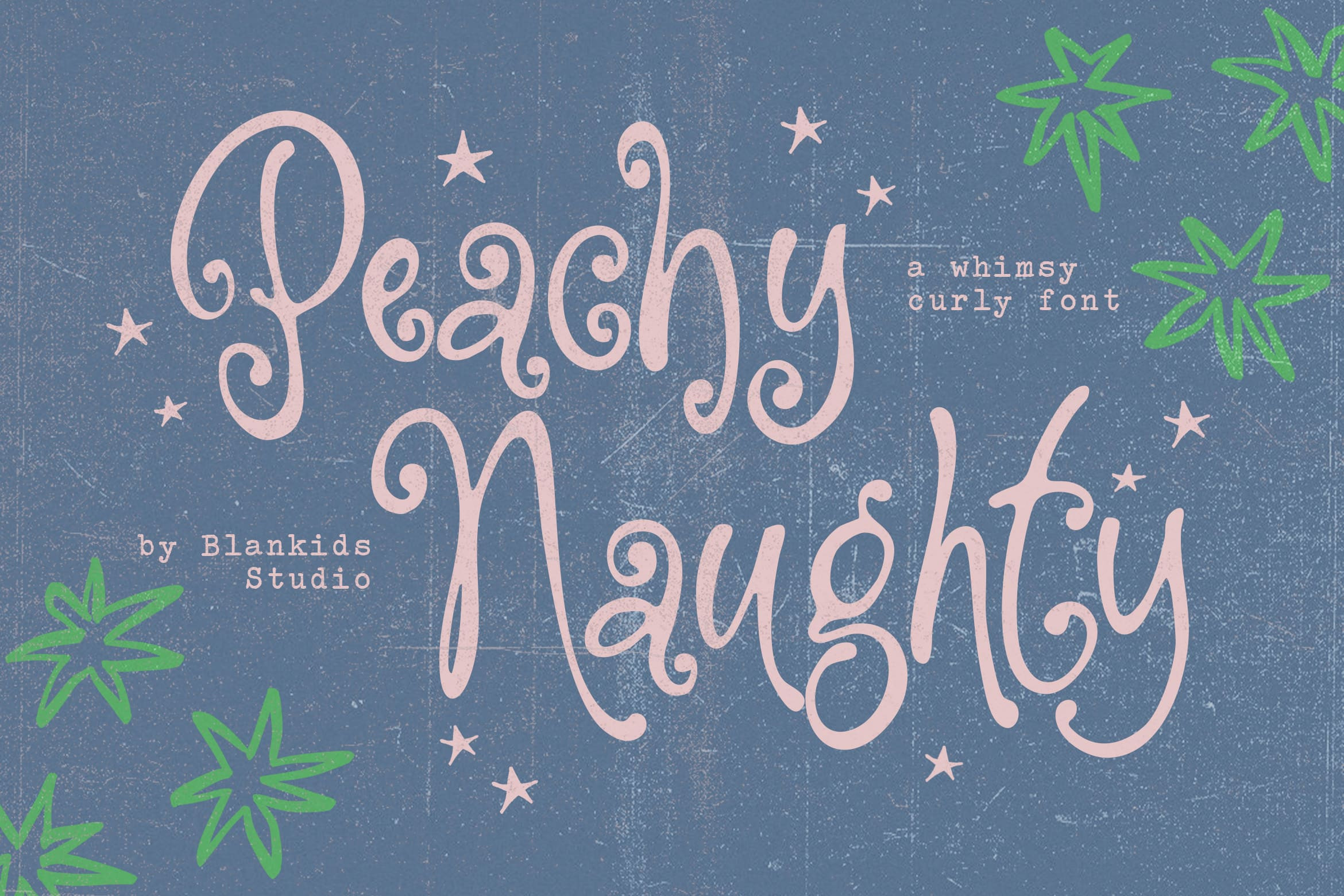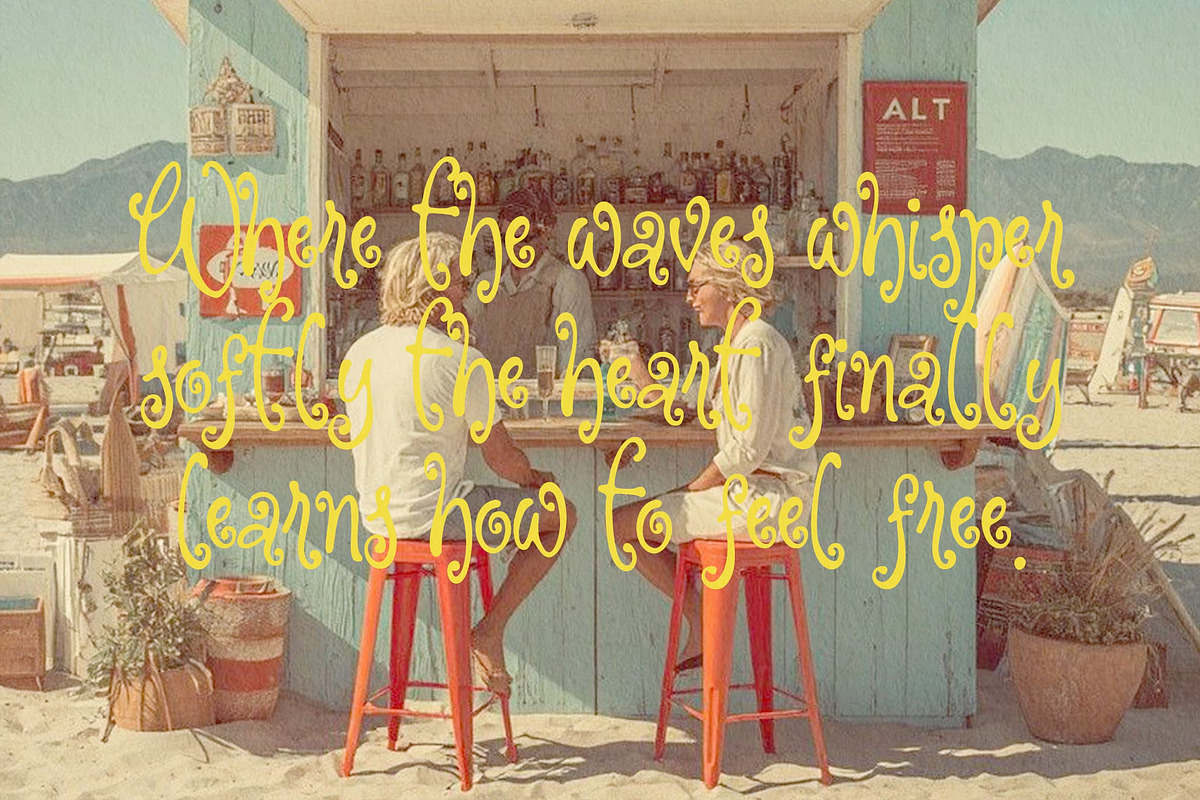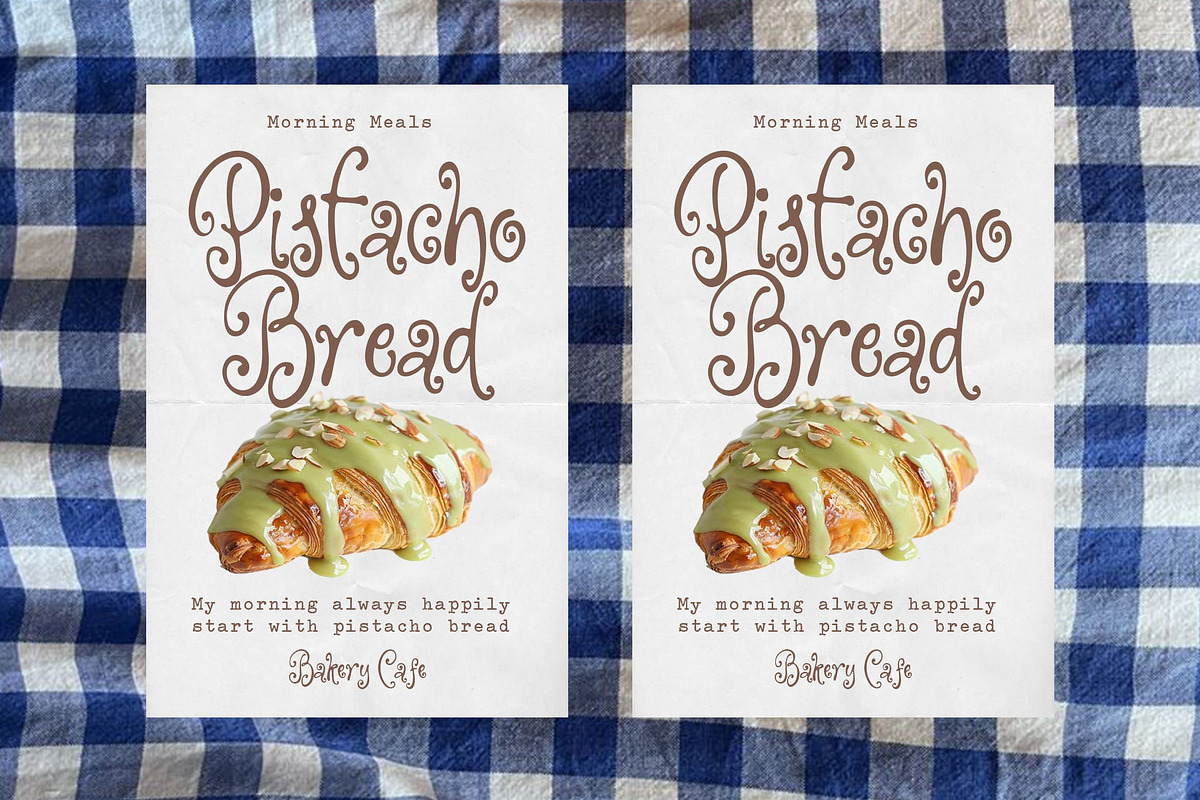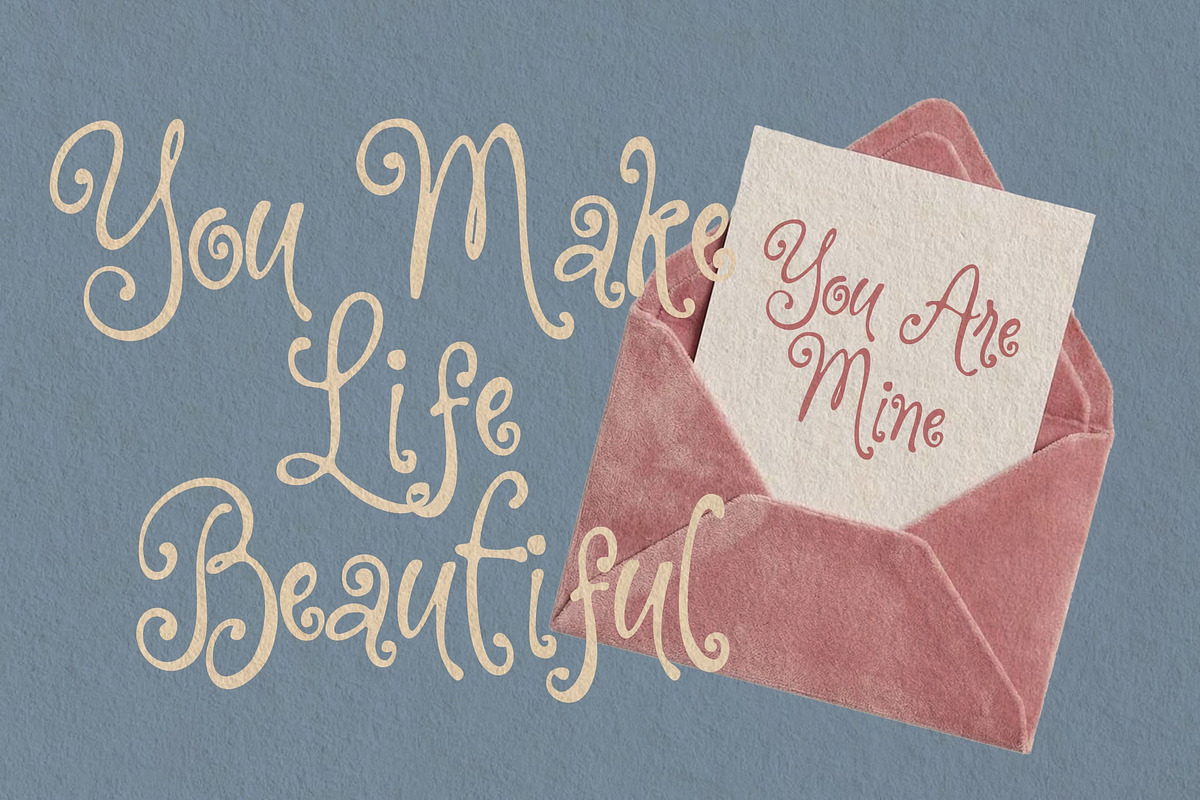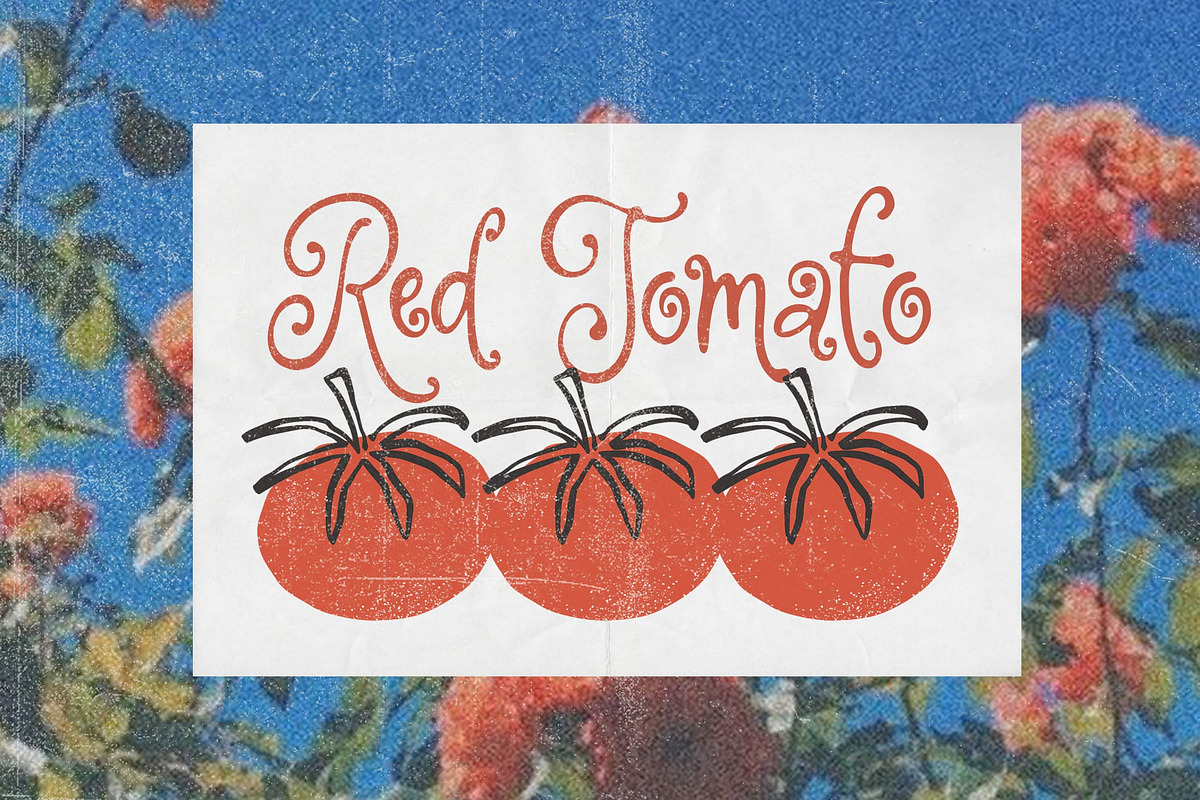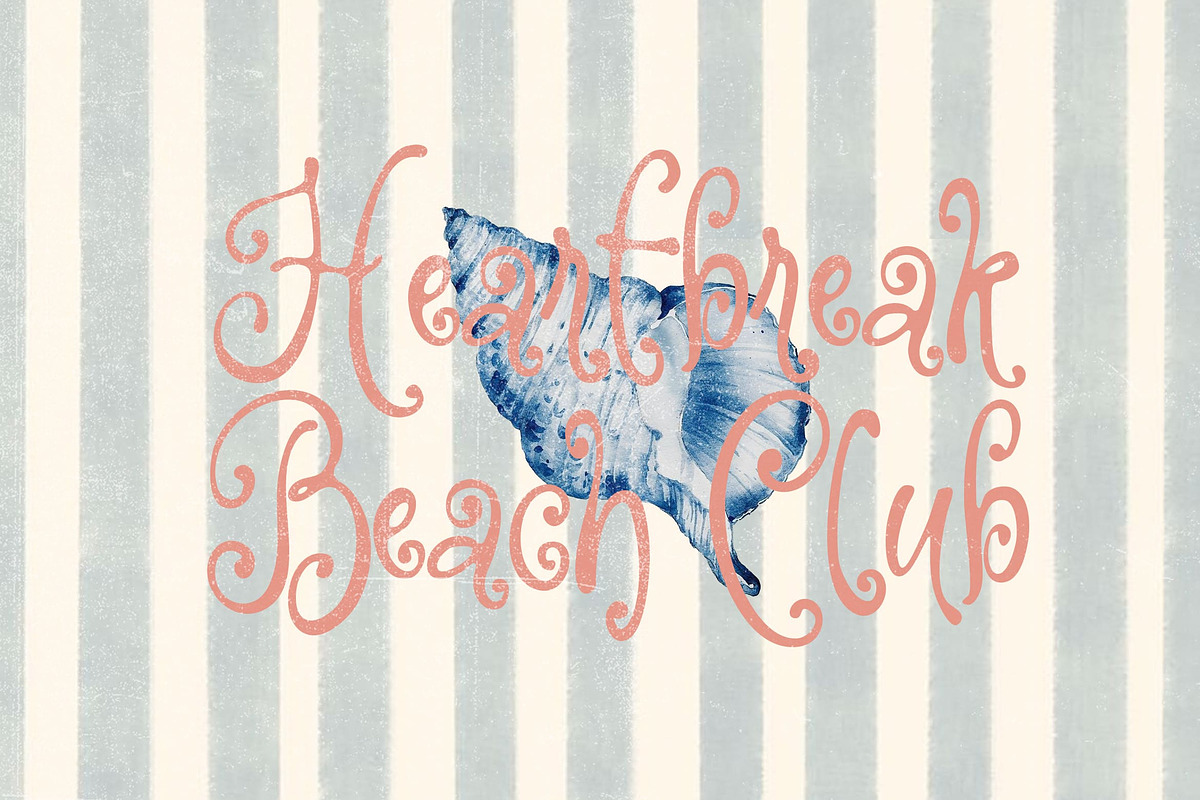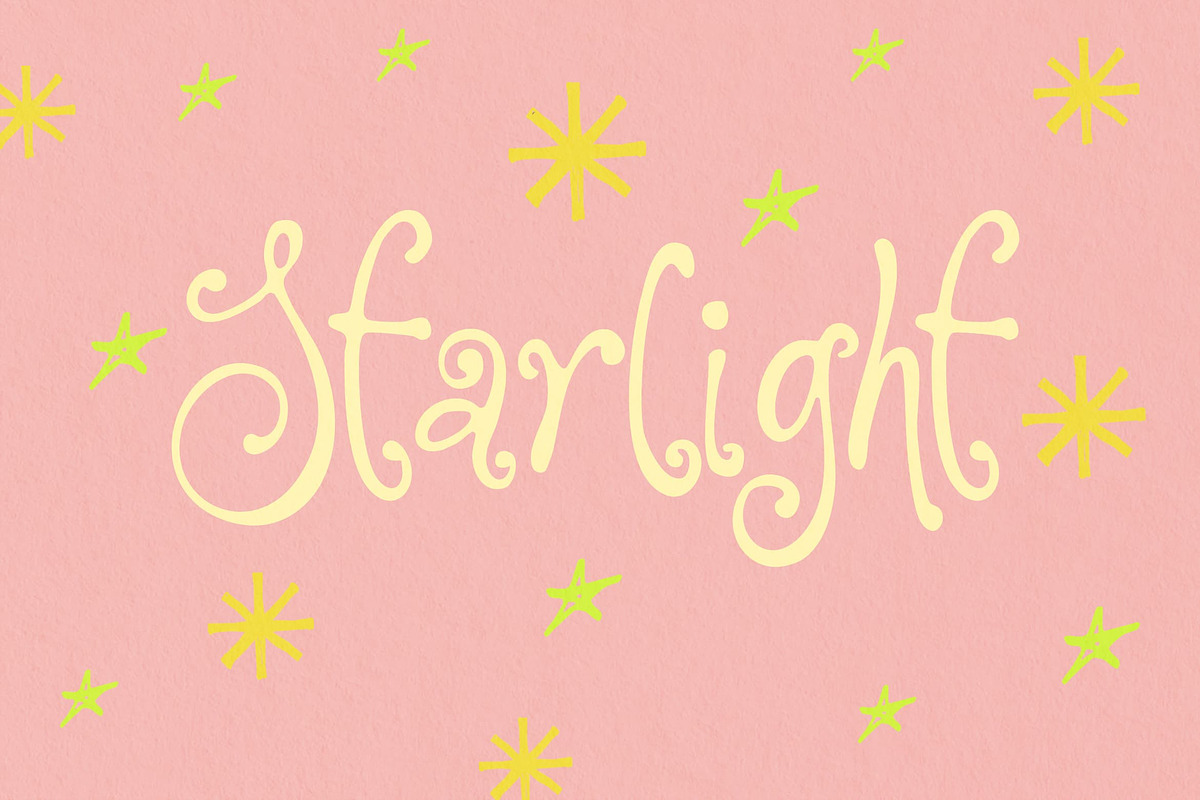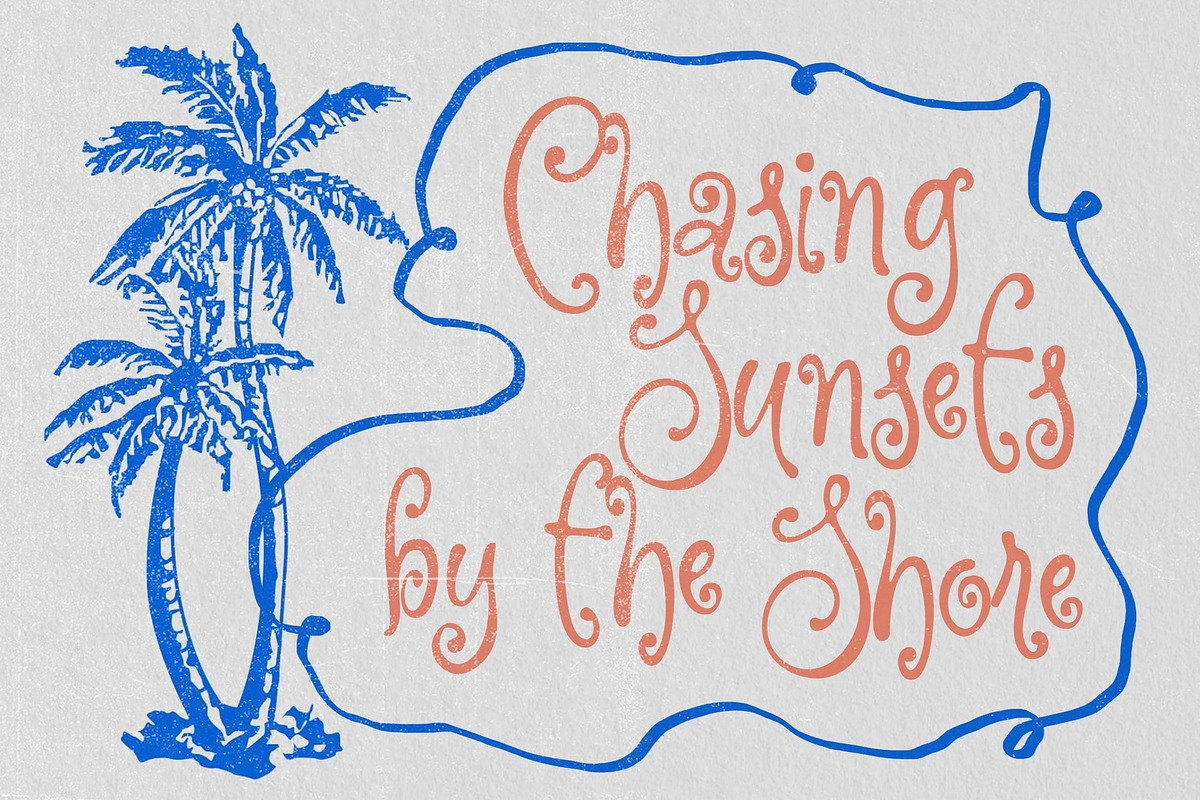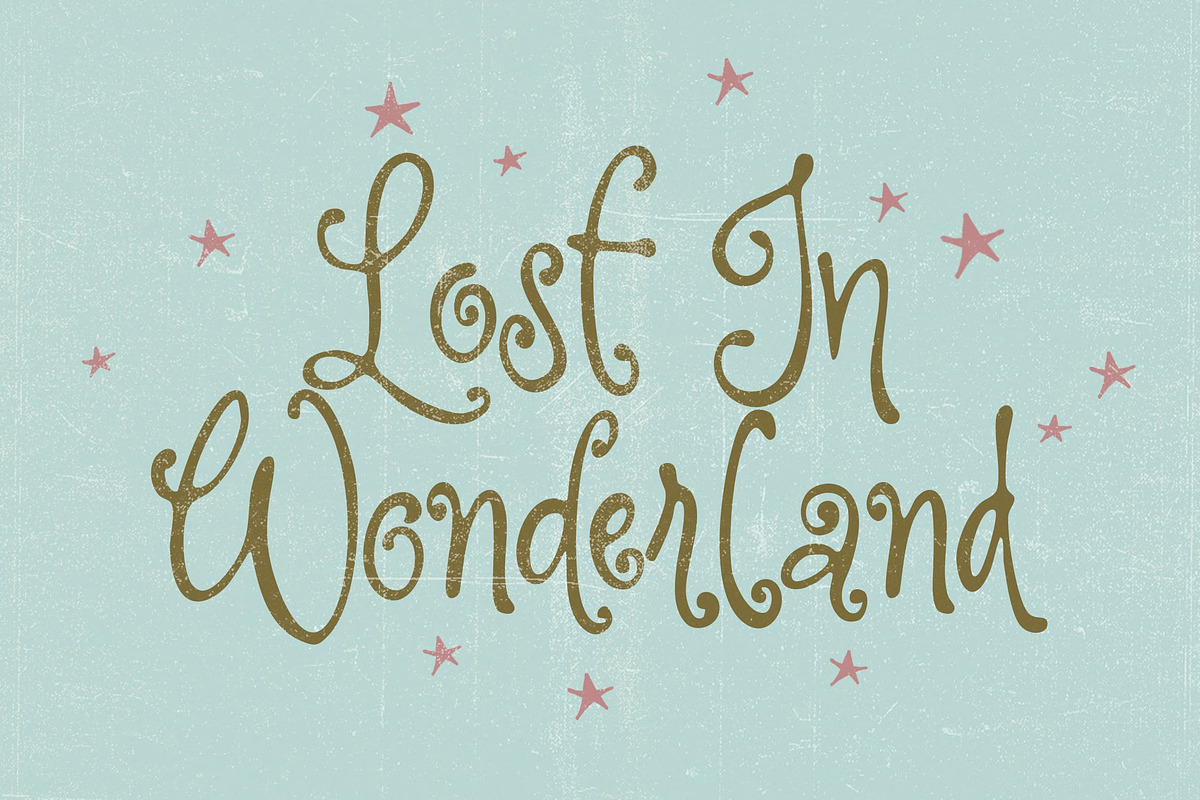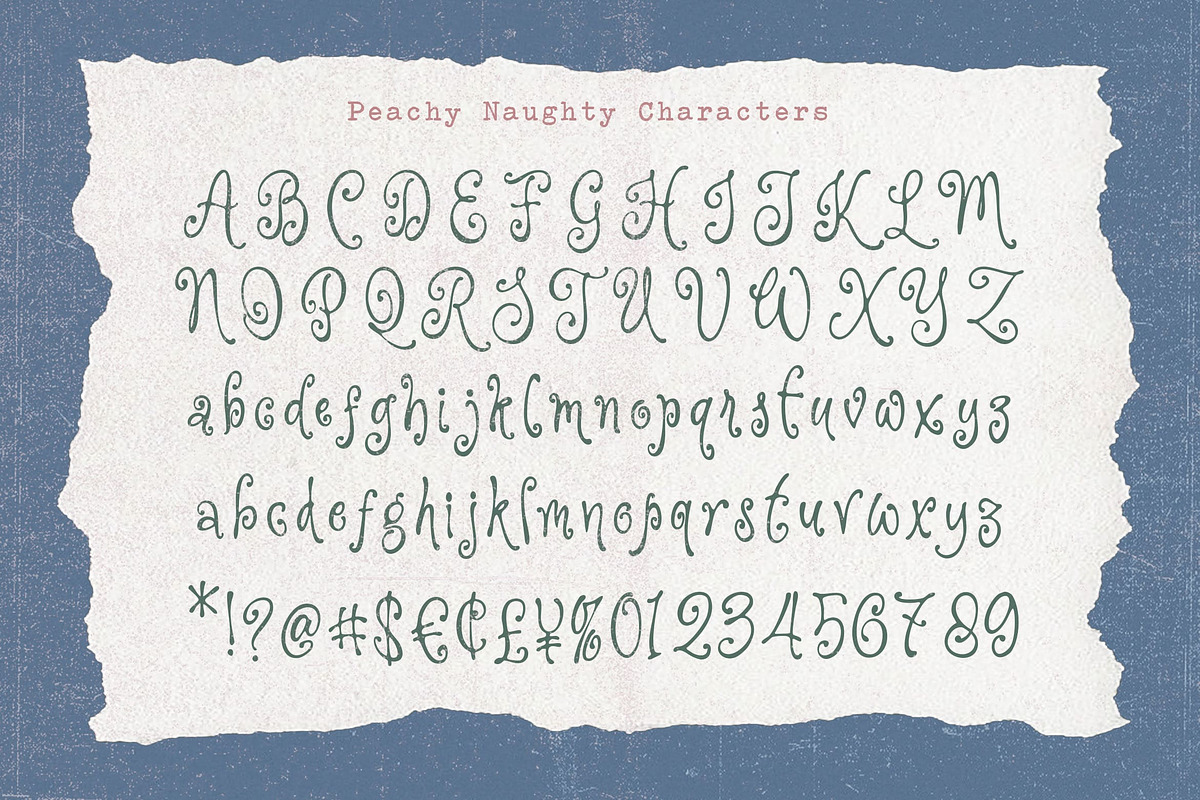
Peachy Naughty a Whimsy Curly Font
Peachy Naughty is a charming whimsical display font that brings a playful and dreamy personality to every design. Featuring beautifully hand-drawn curly letterforms with soft vintage vibes, this font captures a perfect balance between cute, feminine, retro, and artistic aesthetics. Its unique swashes and flowing curves make every word feel expressive, fun, and full of character.
Perfect for branding projects, packaging design, beauty products, bakery logos, greeting cards, book covers, social media posts, posters, invitations, apparel design, and any creative project that needs a touch of whimsical elegance. Whether you're creating a retro-inspired design or a playful modern brand, Peachy Naughty helps your work stand out effortlessly.